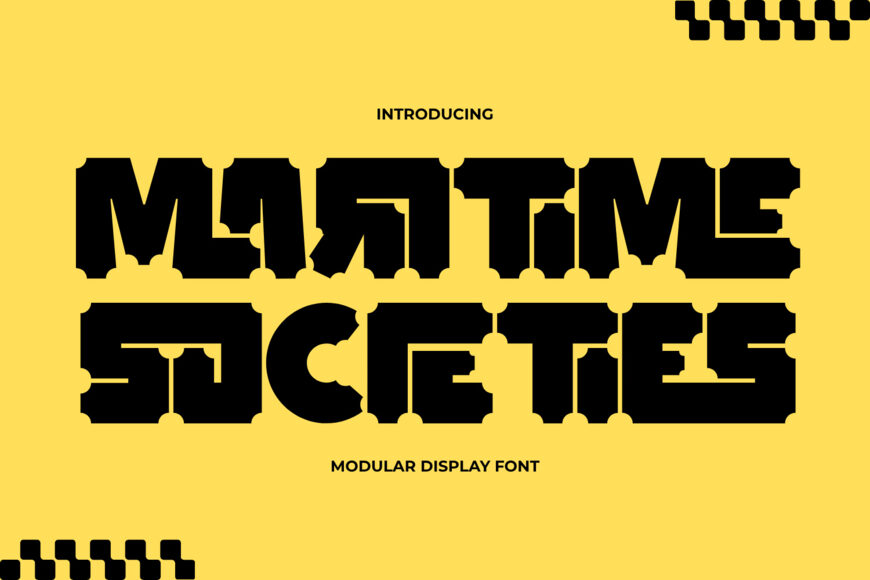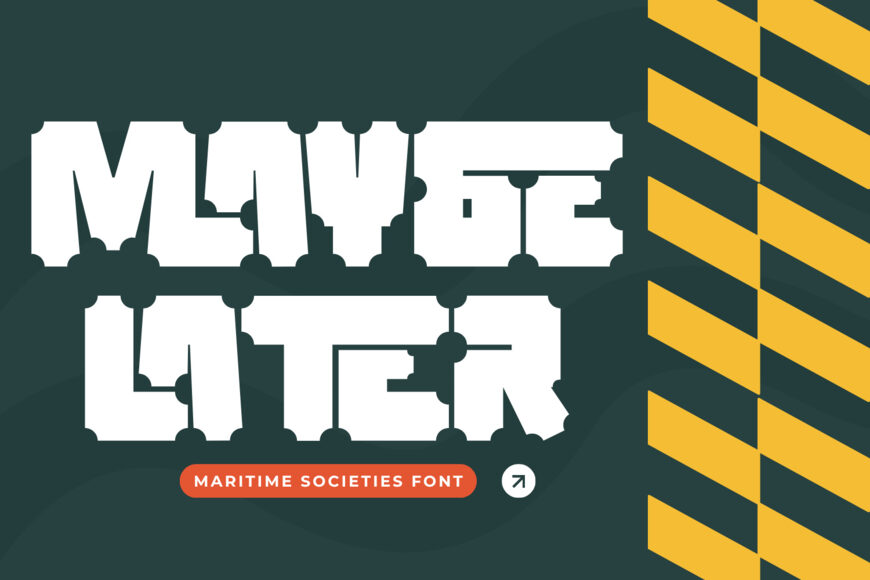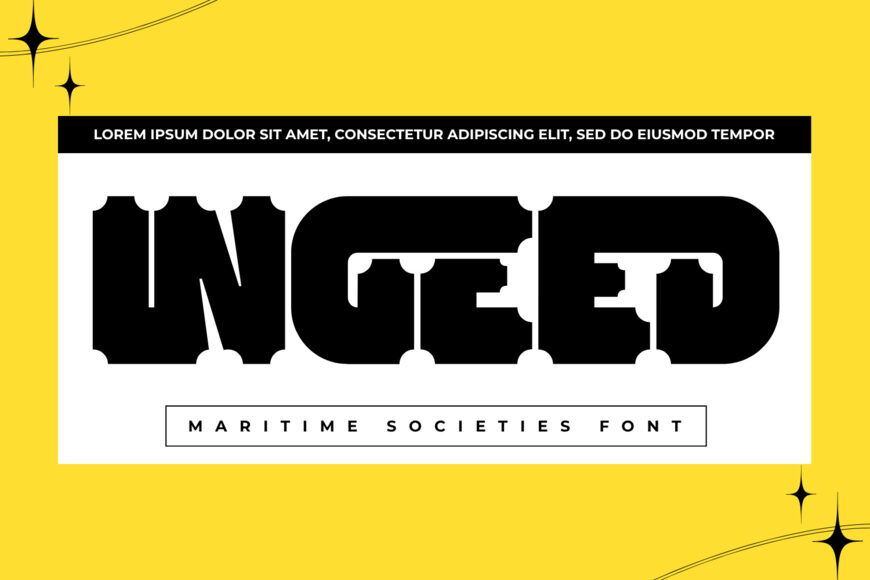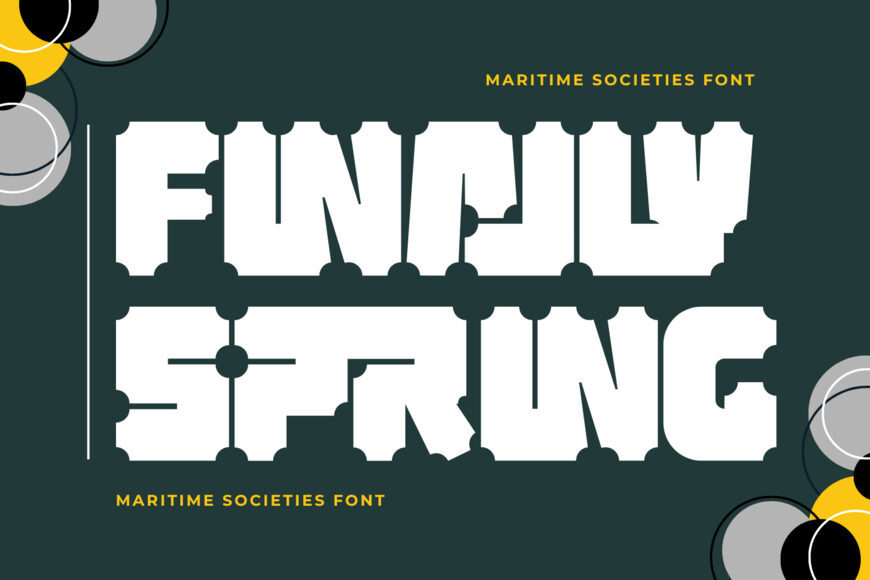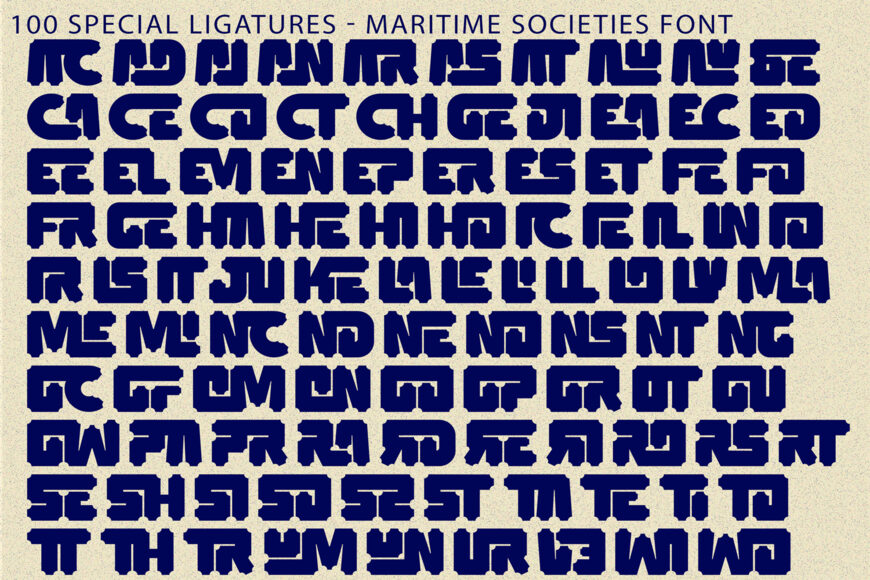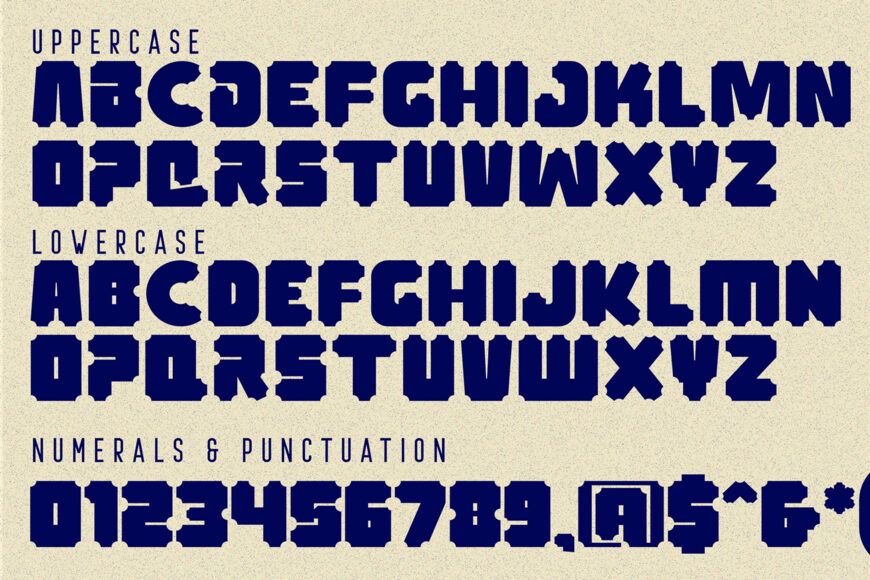
Maritime Societies Font
Maritime Societies is an ultra-bold, industrial display font engineered with heavy block proportions and distinctive perforated edge notches. Drawing rich inspiration from vintage postage stamps, event ticket stubs, and modern brutalist typography, this typeface commands immediate attention with its raw visual weight and tactile punched-hole details.
Packed with experimental character quirks—such as stylized mirrored glyphs and compact embedded letterforms—Maritime Societies turns standard headlines into high-impact graphic statements. It is the ultimate display choice for streetwear fashion, music album covers, festival passes, industrial packaging, brutalist poster layouts, and edgy branding identities.